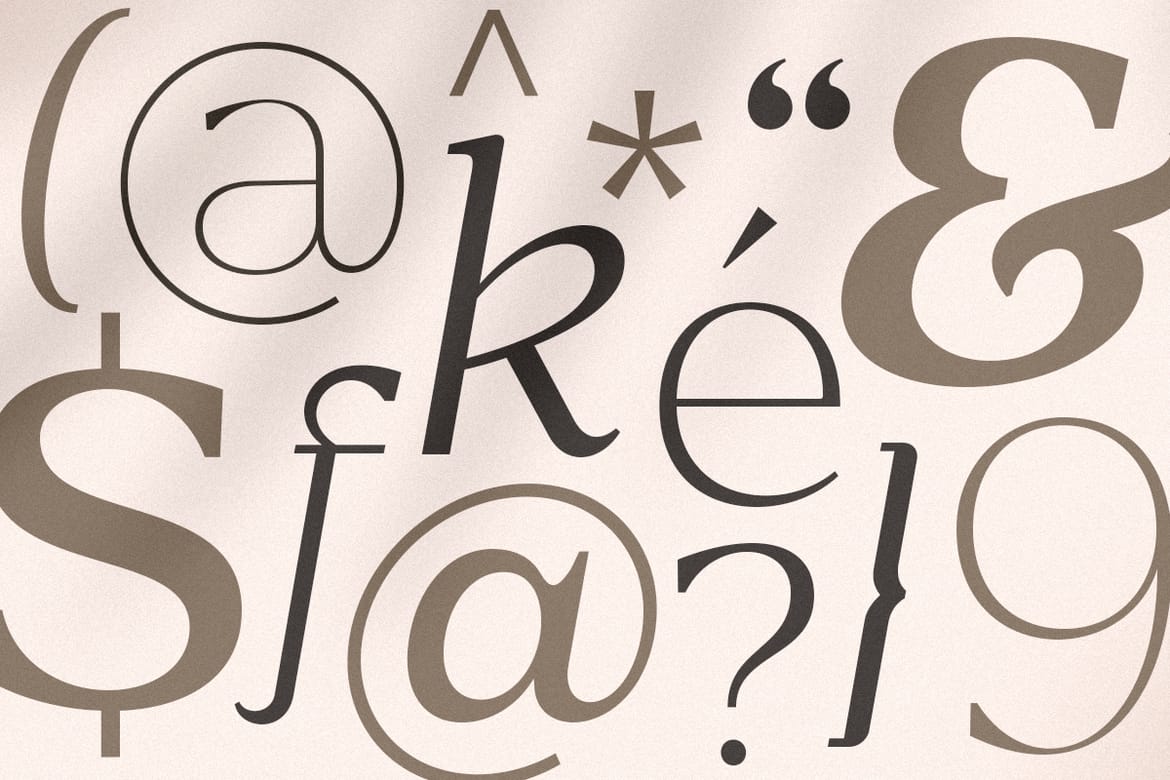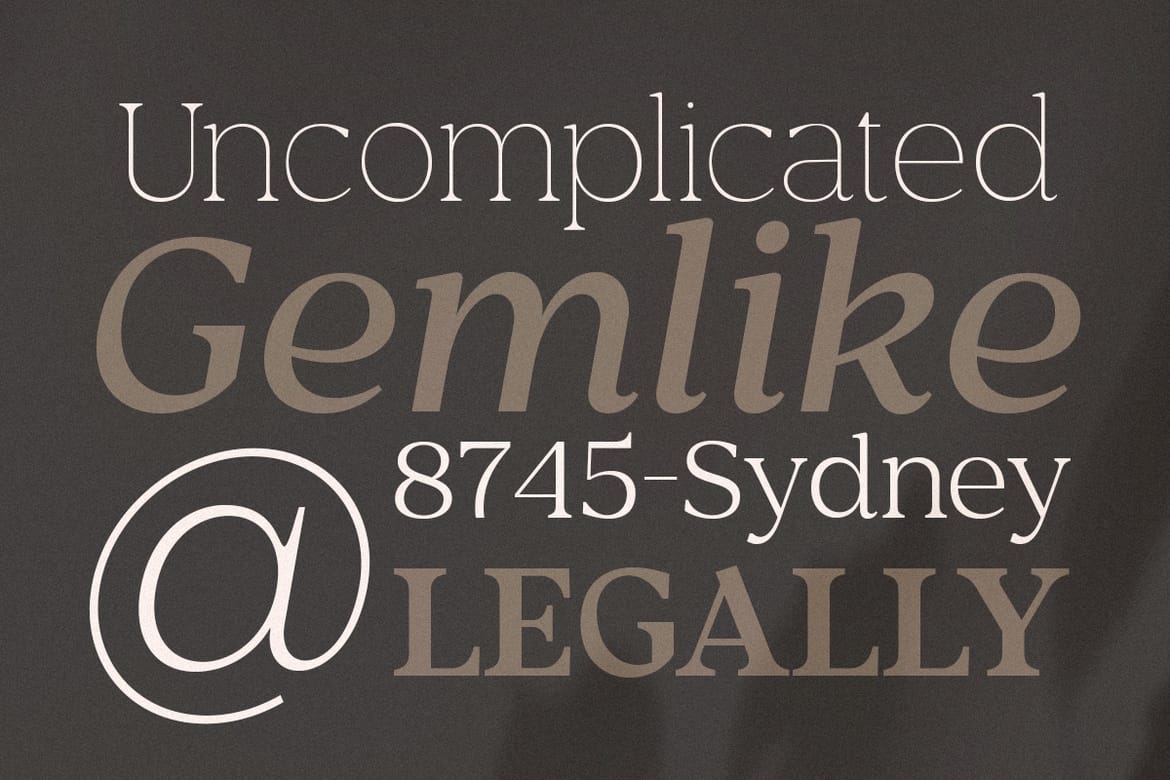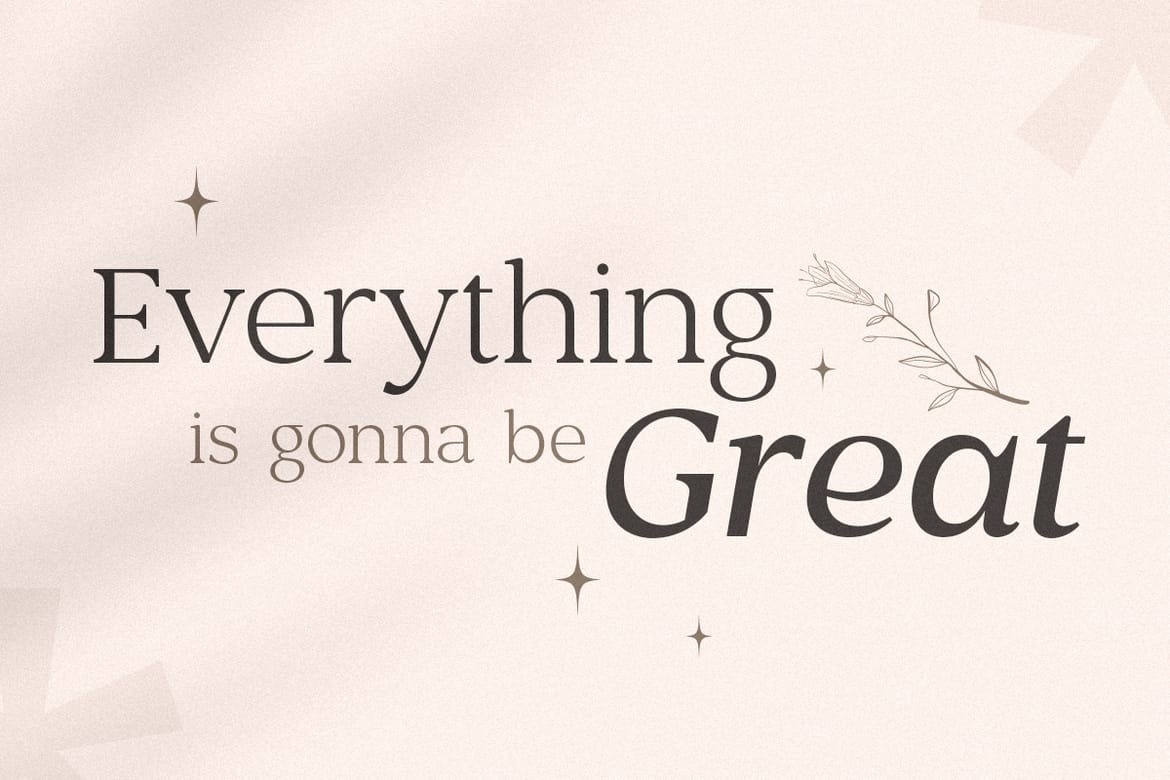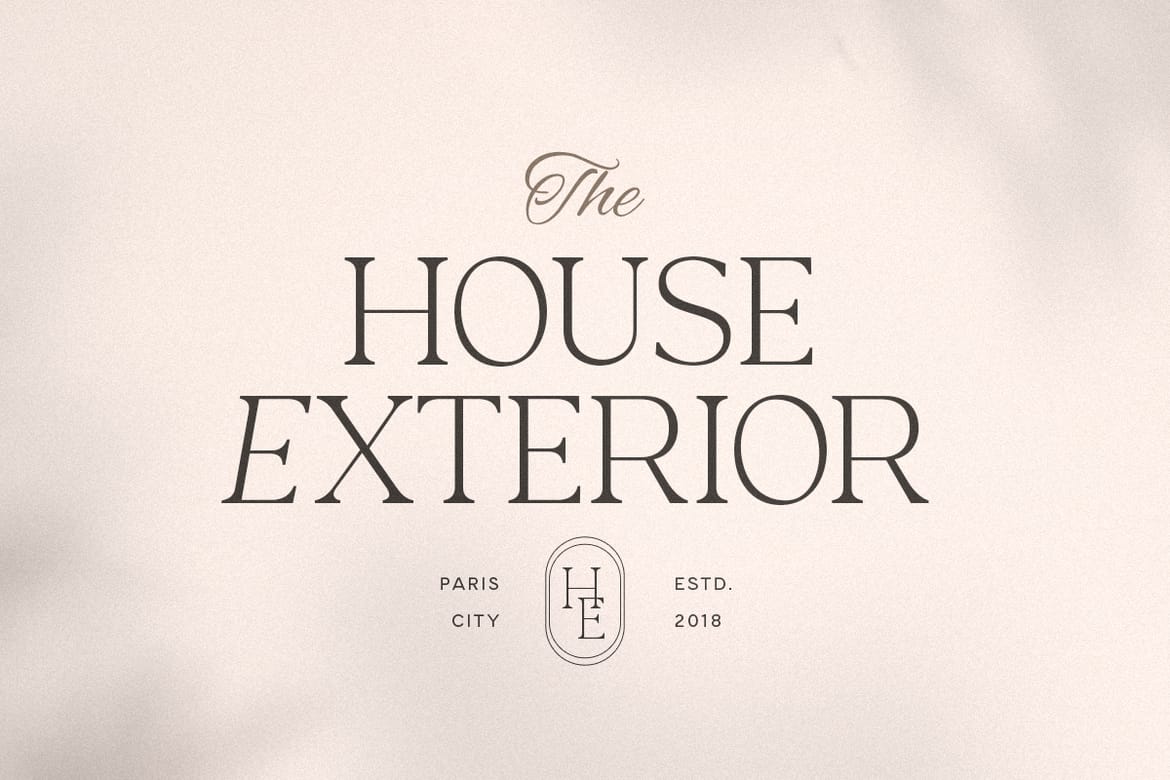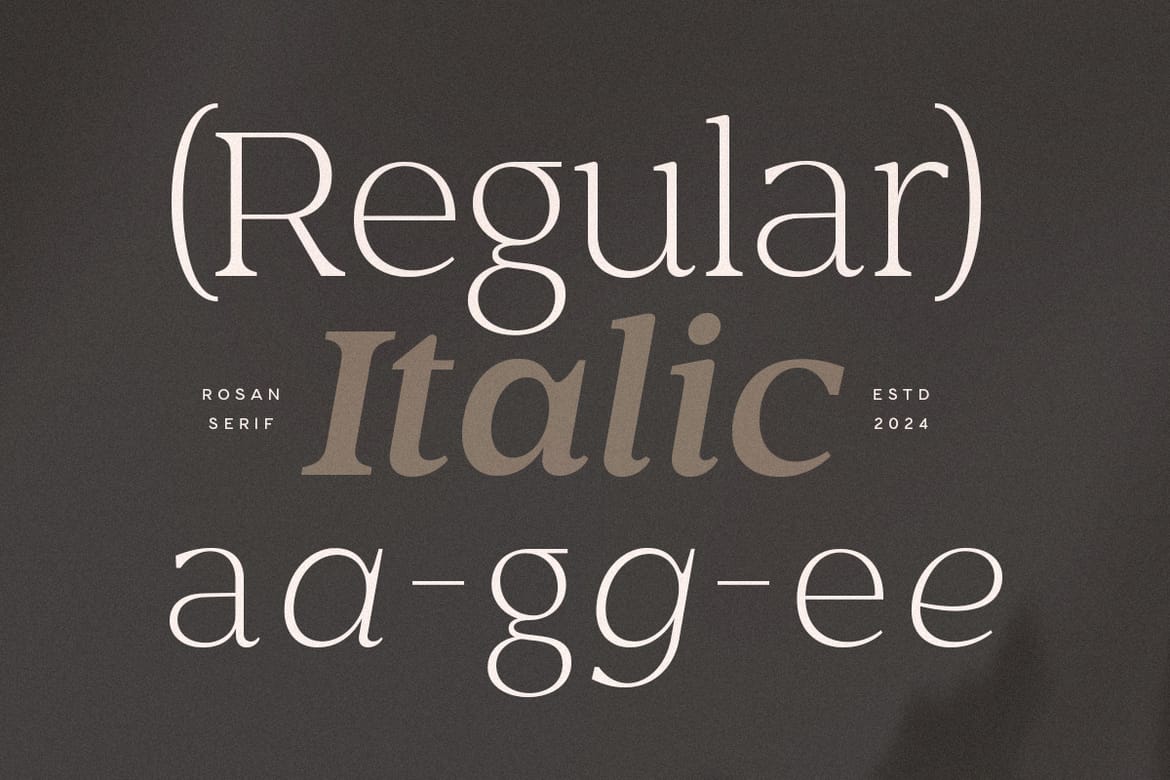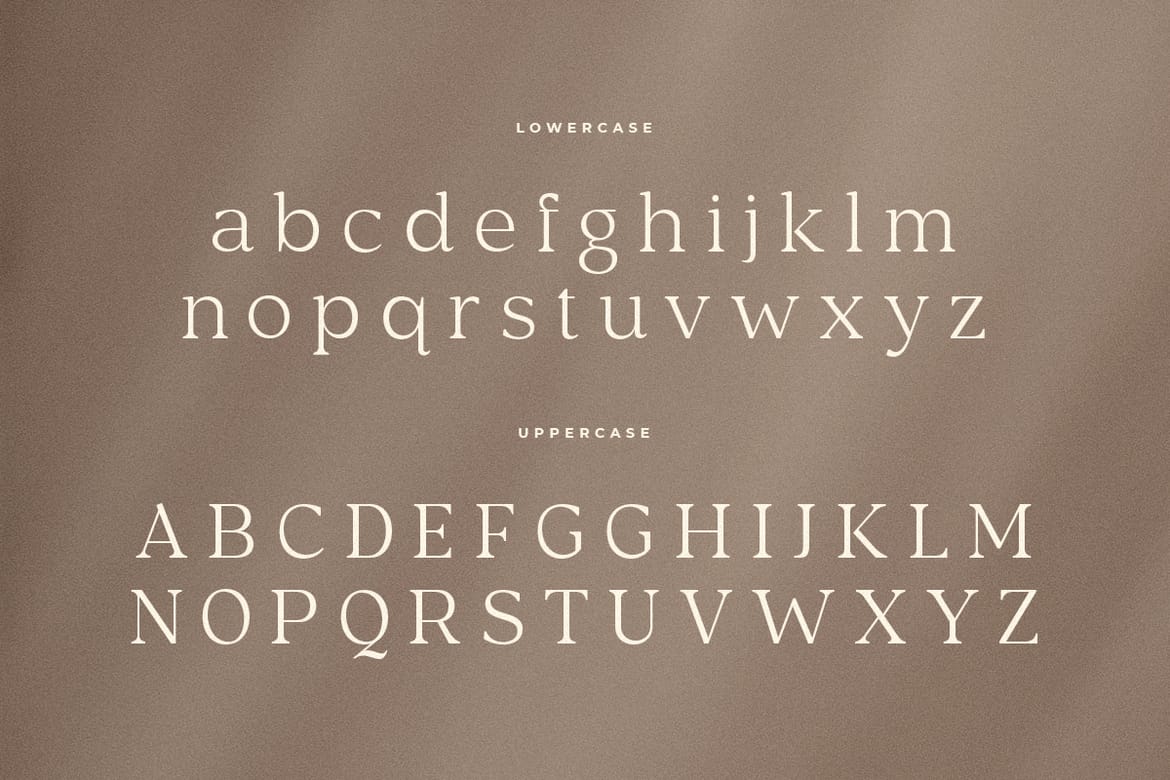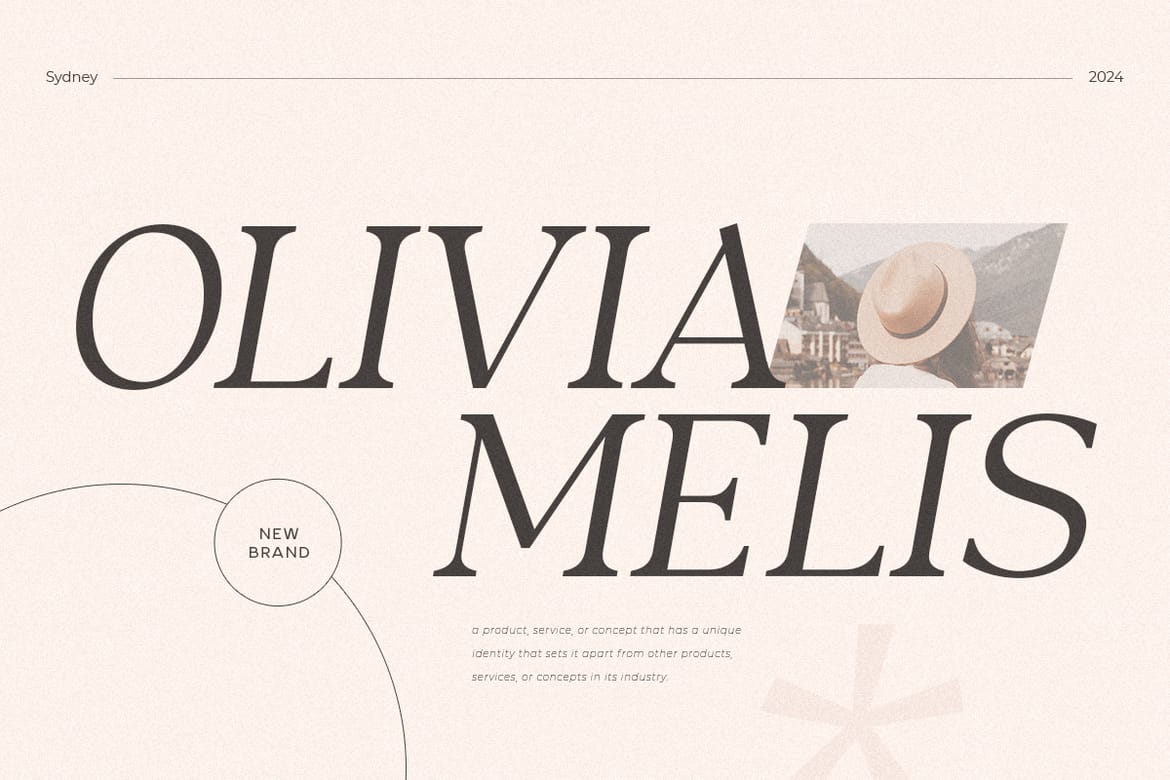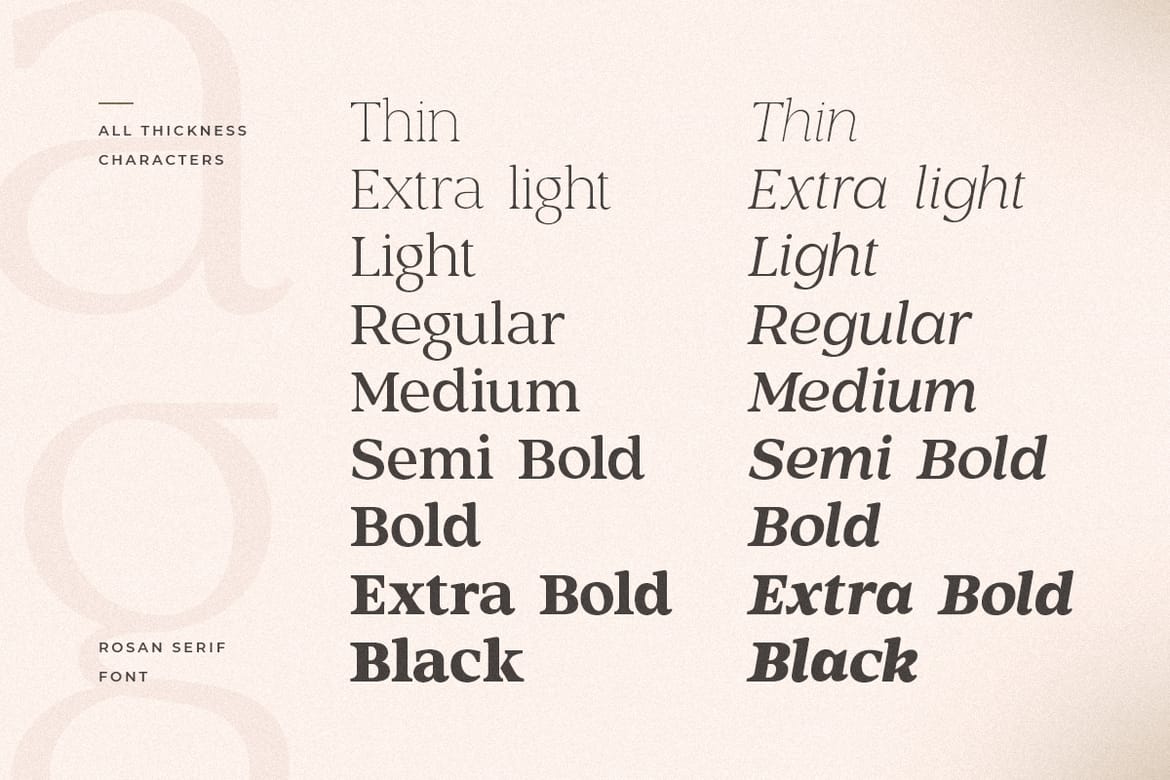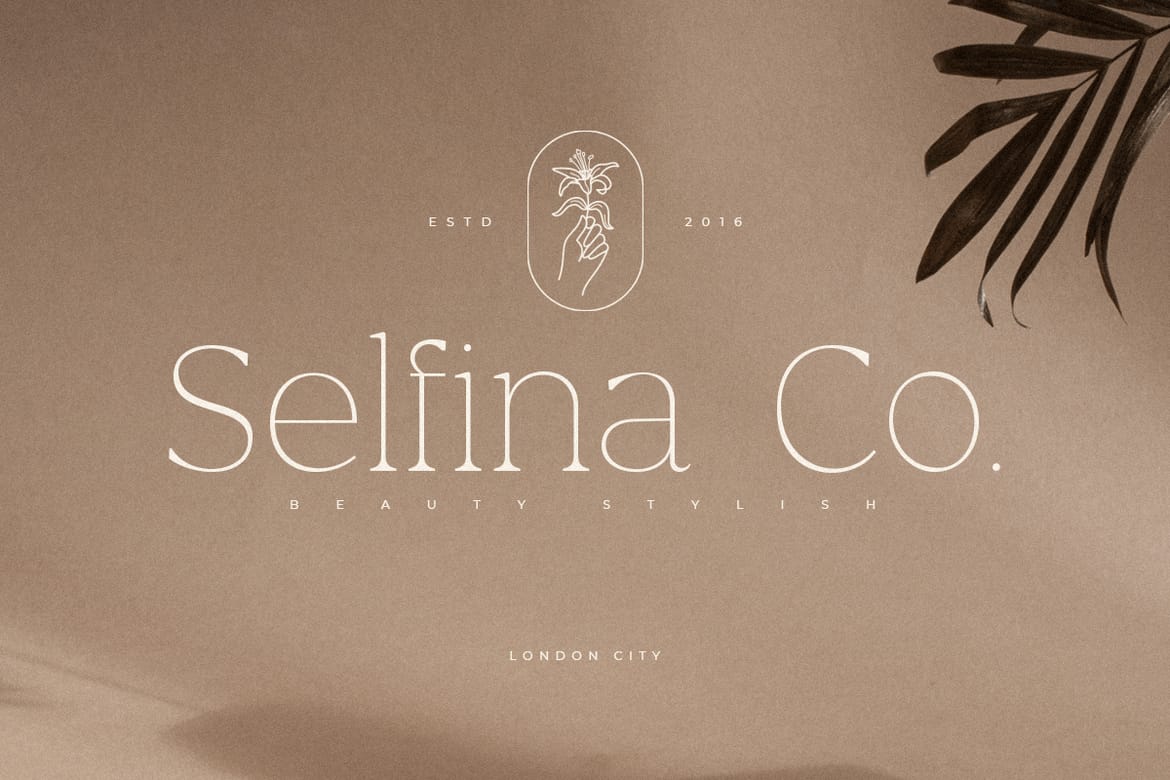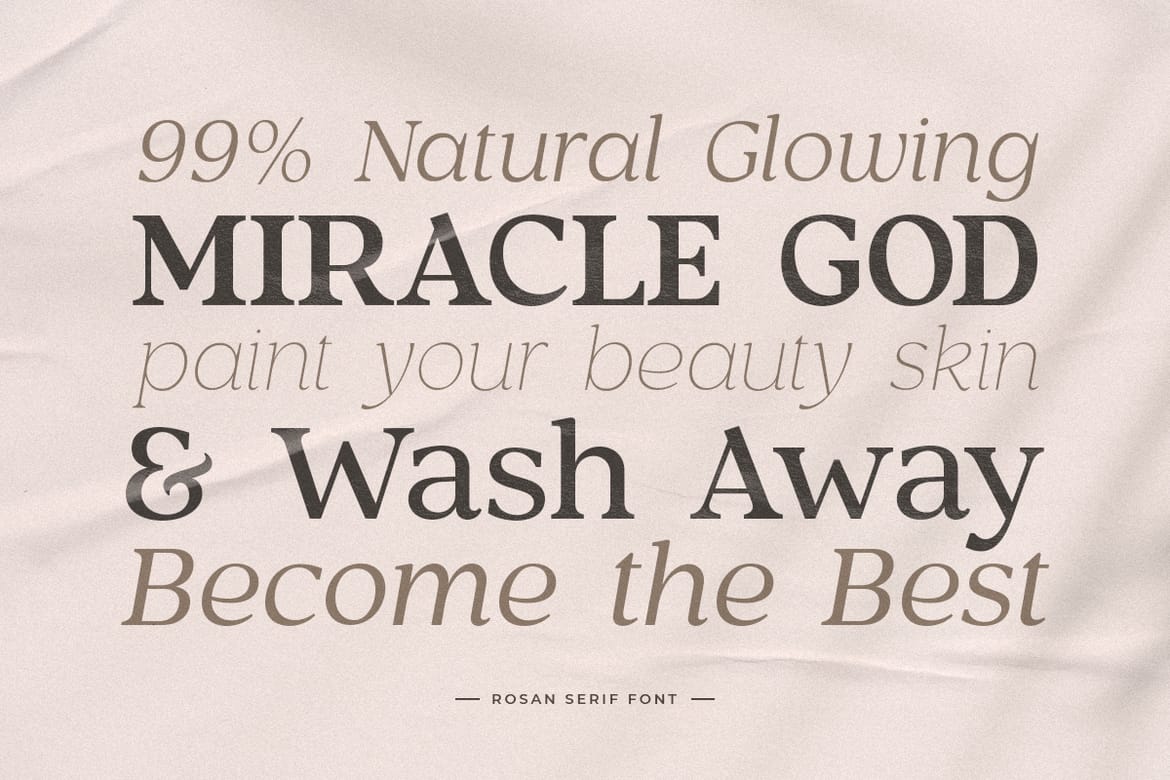
Rosan Serif is a cinematic luxury font family designed to bring elegance and sophistication to your high-end design projects. Inspired by the timeless beauty of classic cinema, Rosan Serif combines modern aesthetics with a touch of vintage glamour. Ideal for creating stunning logos and refined branding materials, this font is perfect for designers who want to make a bold statement with their work.
Rosan Serif Regular font (9 Weights)
Rosan Serif Italic font (9 Weights)
Character set A-Z
Uppercase & Lowercase
Numerals & Punctuation
Accented Characters (West Europe)
- 18 weights regular & italic
- Cinematic luxury serif design
- Accented West European characters